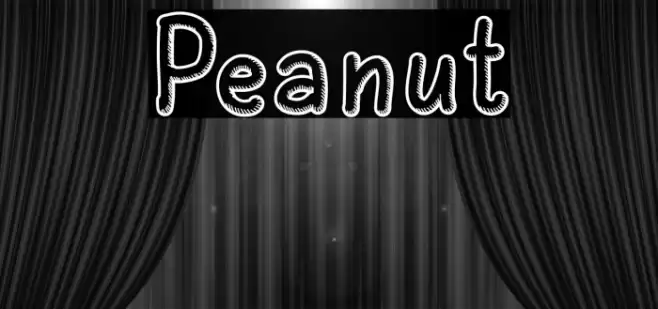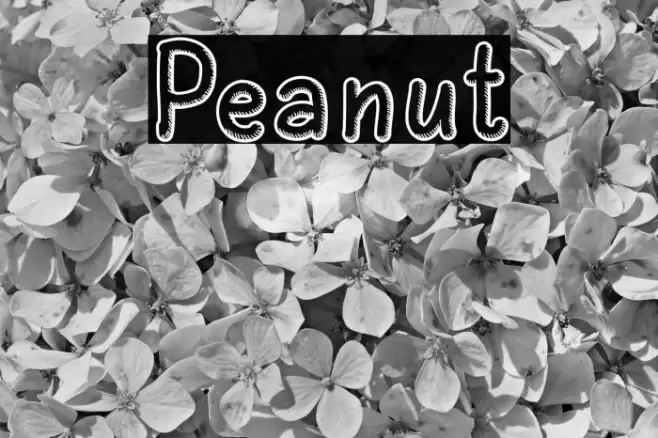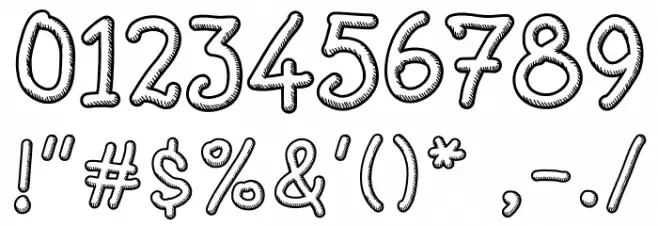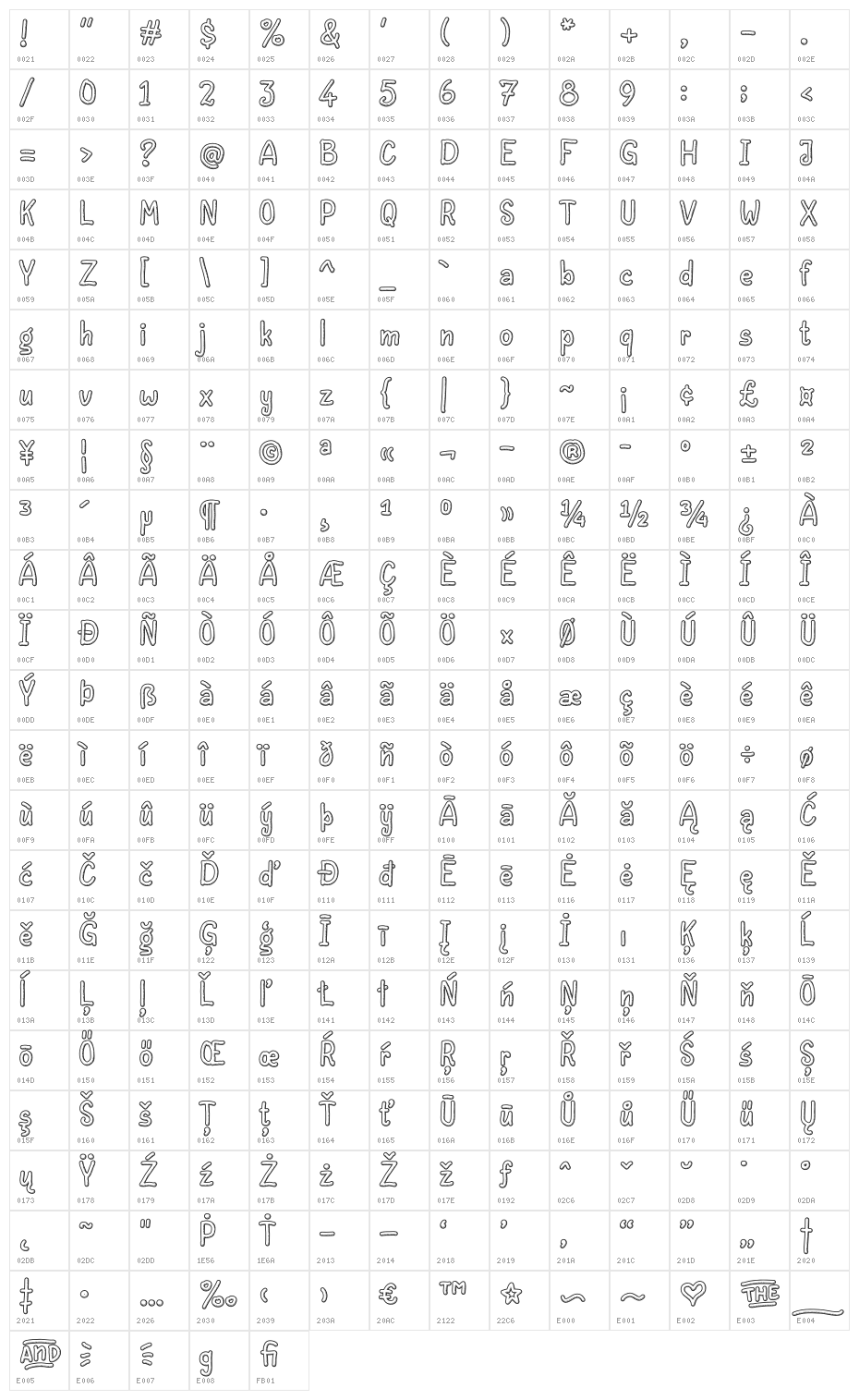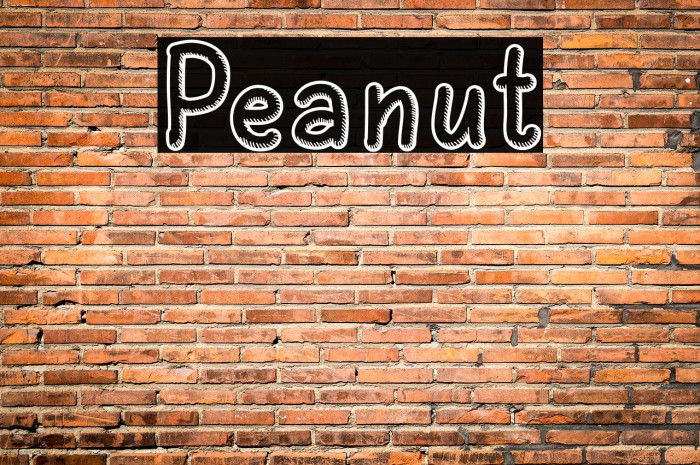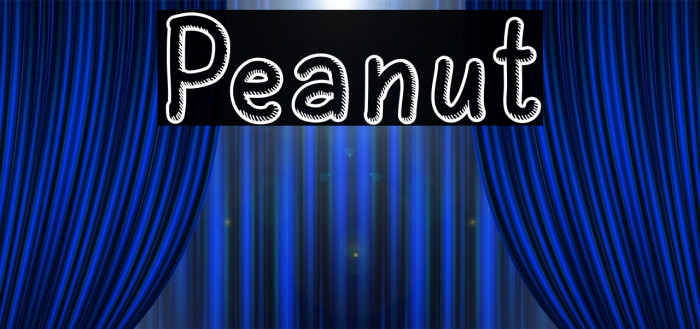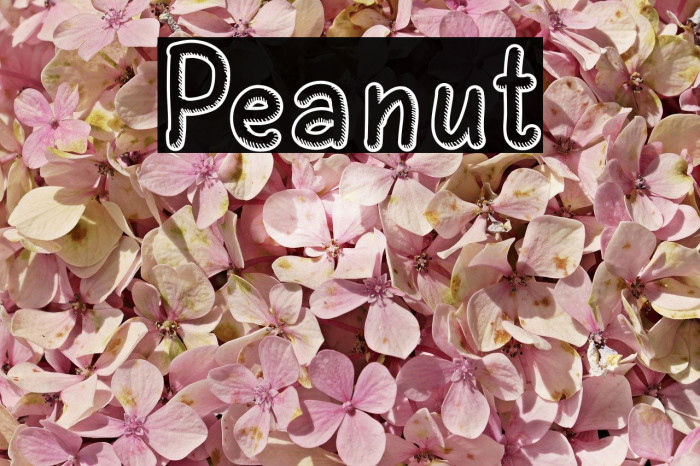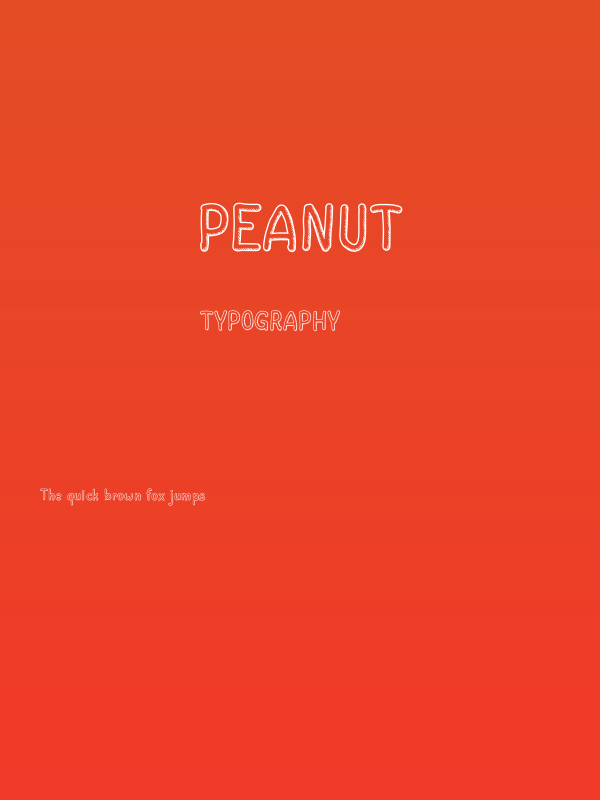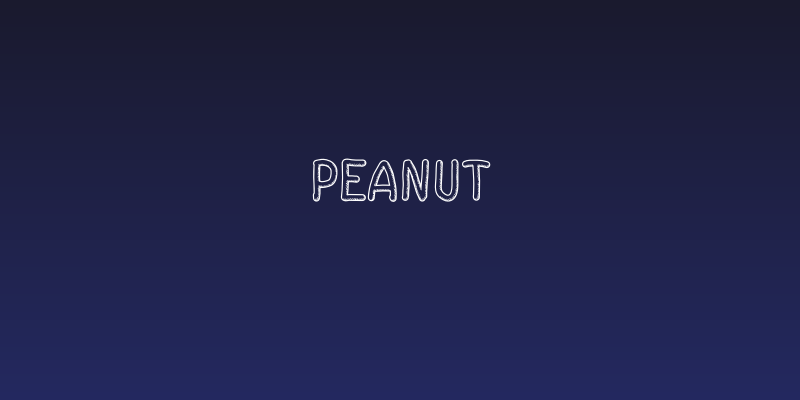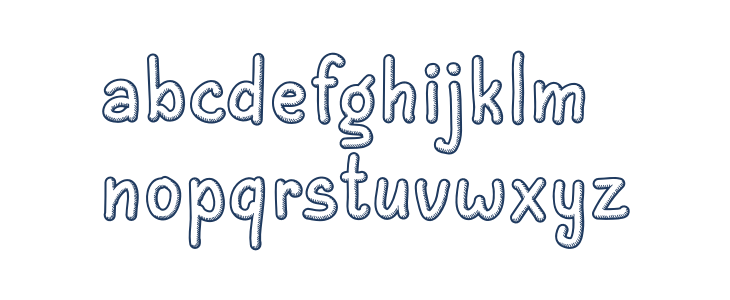
Peanut Font
Peanut Description
This font features a playful and whimsical style, characterized by its bold, rounded letterforms with a hand-drawn appearance. Each character is outlined with a thick, textured stroke that adds a sense of depth and dimension, reminiscent of doodles or sketches. The letters are slightly irregular, enhancing the casual and informal feel. The font maintains a consistent weight throughout, providing a uniform look while still allowing for a lively and dynamic presentation. Its unique texture and playful design make it ideal for projects that require a fun and engaging visual element.
A playful, hand-drawn style with bold, textured outlines and rounded forms from Cartoon fonts.
- Proposed Projects: Ideal for children's books, playful branding, greeting cards, and creative posters.
- Overall Style: Playful, Whimsical